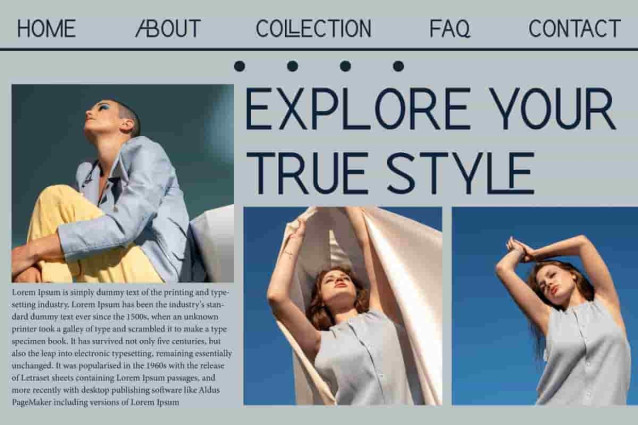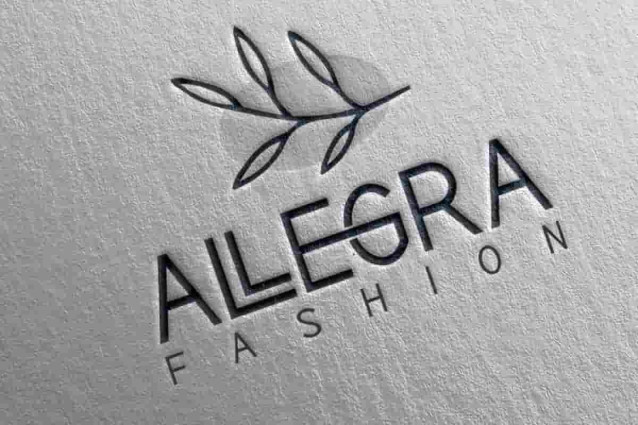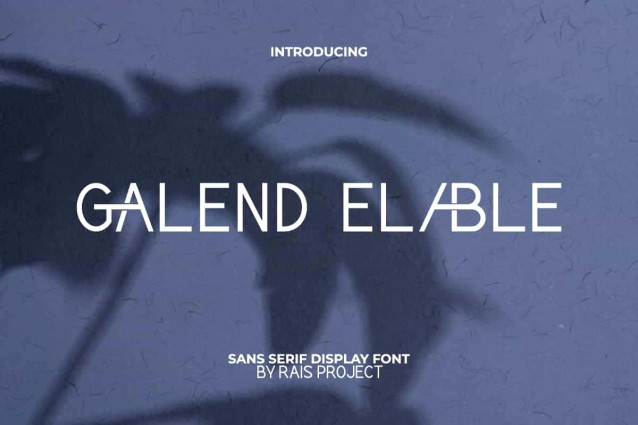
Galend Elable Font
Galend Elable Font is a stylish sans serif display font, created by RaisProject. This font has a generally clean sans serif style and can be paired with other font types. It will look good on invitation, stationery, poster, custom design, product packaging, quotes, signage, brand image, advertisement, label, marketing material, website page, and more!
Galend Elable Font includes a full set of ALL CAPS for Uppercase and Lowercase Letters, Numerals, and large range of Punctuation. This modern font also contain Ligature character that will be suitable for various industries, such as fashion, jewelry, cafe, event or wedding organizer, photography, printing, publishing, etc.